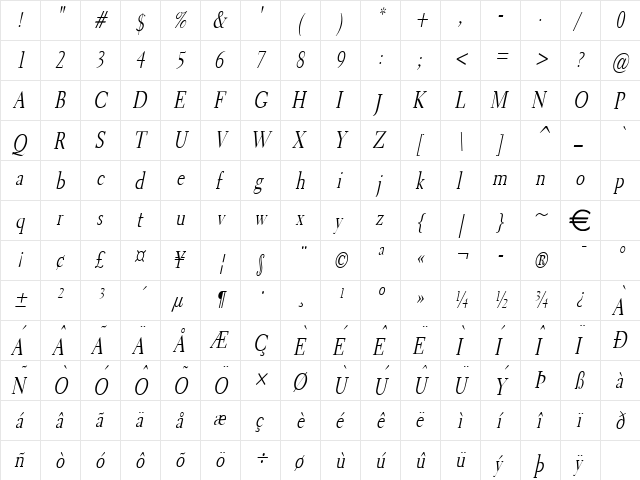
Design Context for TrannCondensed Typeface
TrannCondensed takes a measured approach to typography — its balanced proportions and neutral character make it a reliable workhorse for both digital and print work. The dynamic lean of this cut emphasises speed and emphasis in any layout. The condensed width makes it efficient for tight spaces without sacrificing legibility.
Pro Tip: Try TrannCondensed for annotation and caption copy alongside an upright companion — the contrast in angle creates a dynamic but ordered typographic system.